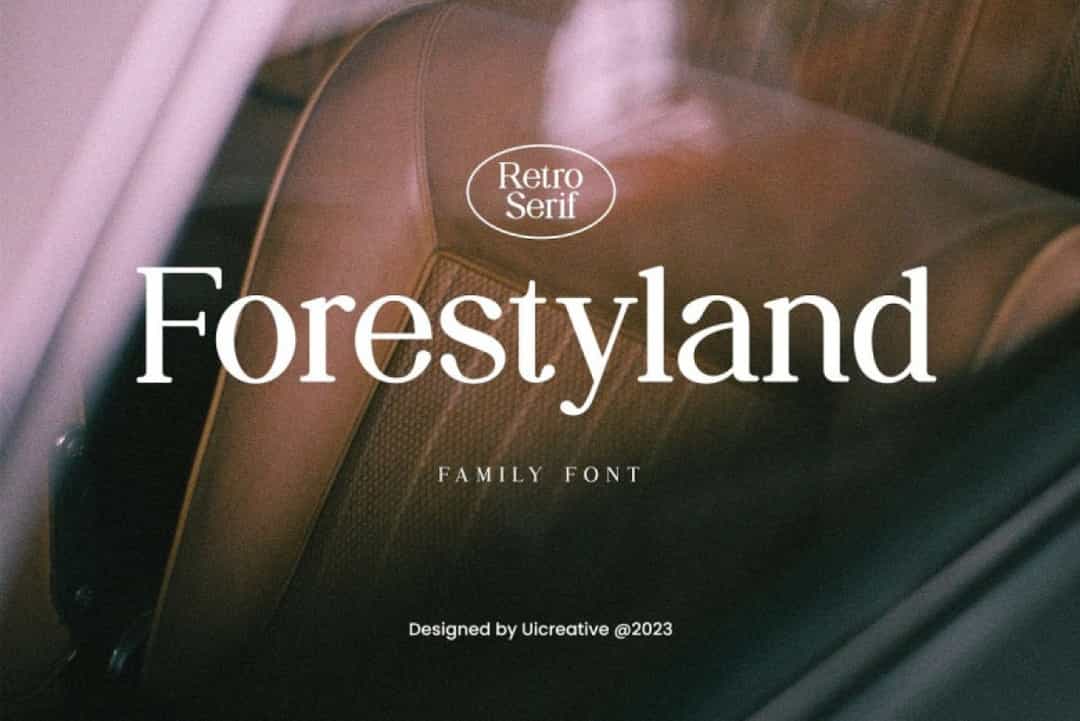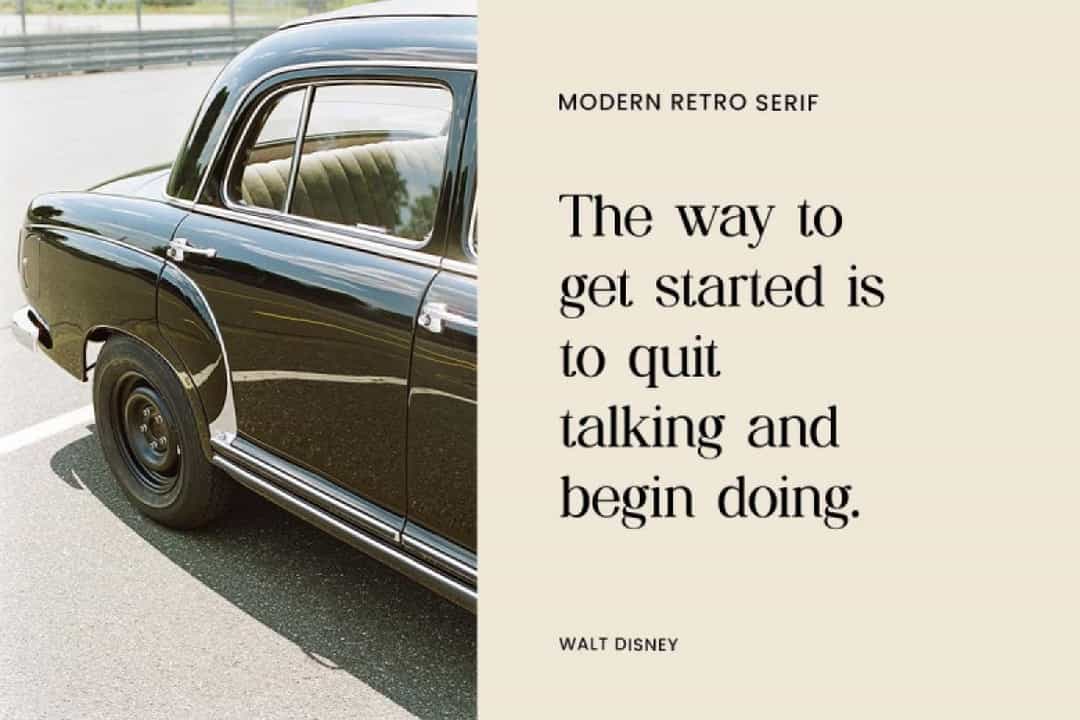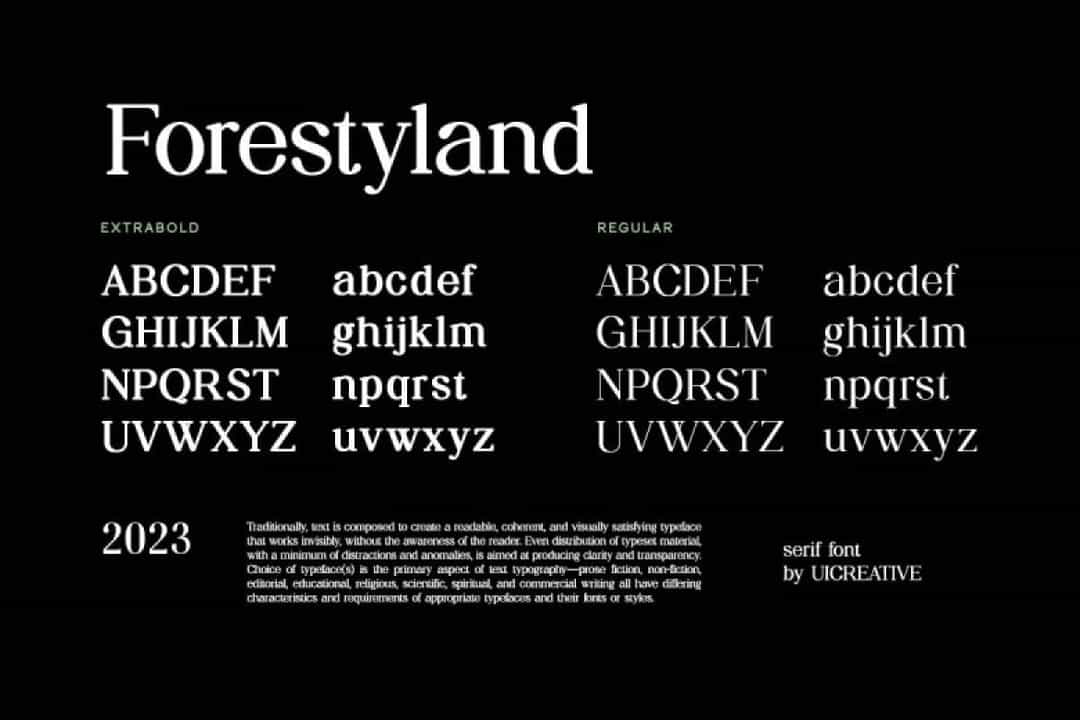
Forestylandis an old-fashioned serif font family featuring crisp and vibrant strokes with strong contrasts that is both vibrant and subtle. It makes an excellent choice for stationary designs, signature logo wedding, typography quotes magazines or book covers, headers for websites as well as clothing branding packaging design or anything else in need of serif fonts.